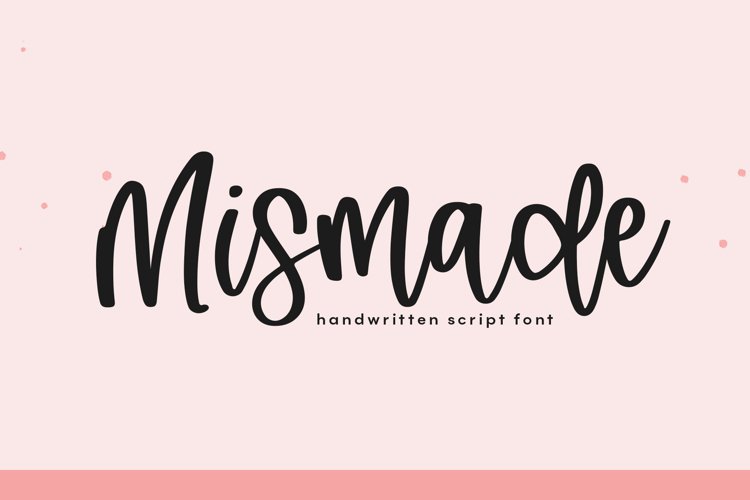
Mismade - A Handwritten Script Font
Mismade
Mismade is a modern handwritten script font!
This font is perfect for quotes, shirt designs, websites, branding, children's designs,  blogs, logos, invitations and more!